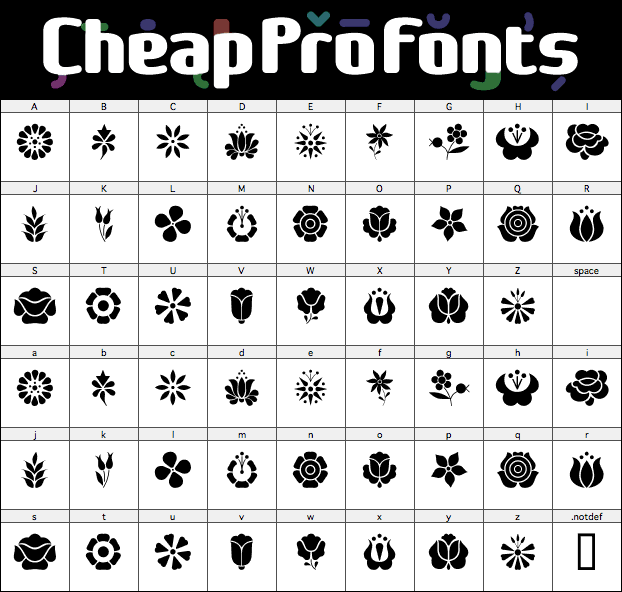
A collection of traditional hungarian flower illustrations. No "extended character set" as the standard text says under the sample, but still with an international flair... ;)